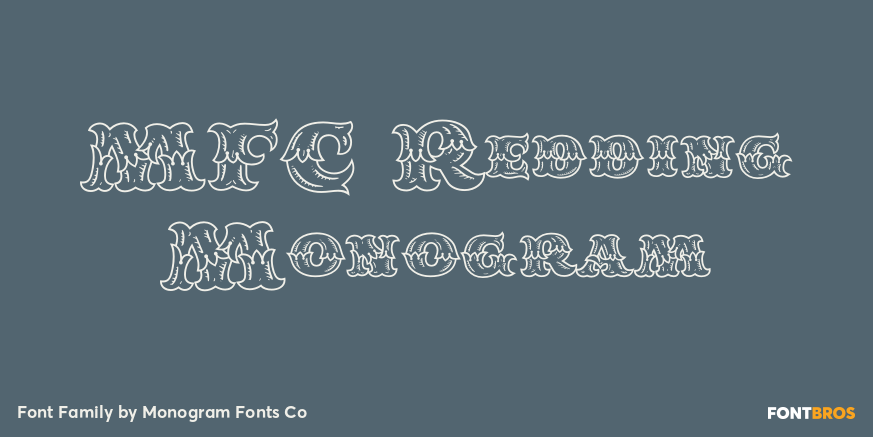
MFC Redding Monogram
About MFC Redding Monogram
The source of inspiration for MFC Redding Monogram is a highly ornate lettering style from the book, ?Letters and Lettering? by Carlyle & Oring. This fantastic vintage sign painter style was originally depicted only with Capitals and Numbers, which we\’ve…